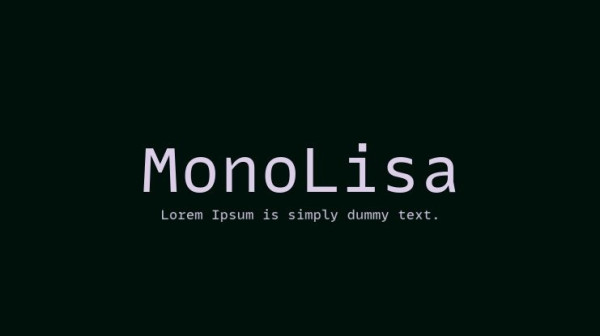
MonoLisa Font, is a sans serif stunning when combined or separately. This sans serif font style is legible and stunningly designed.
MonoLisa Font
| Designer Name: | Marcus Sterz |
| Classification: | Display Fonts, Sans Serif Fonts |